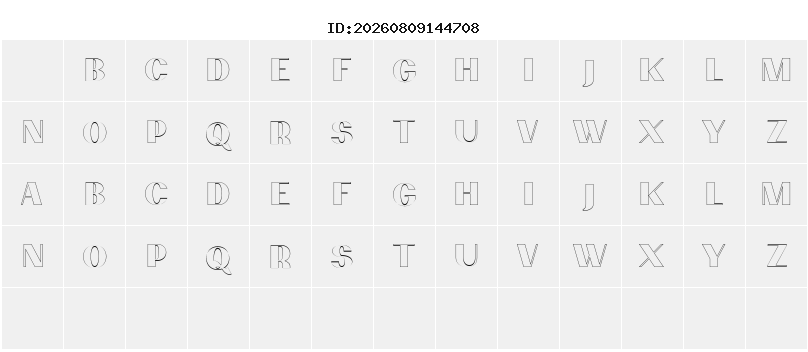
• Font Name: PassionSansPDca
• Font Style: OutlineLight
• Manufacturer: Prescott Design
PassionSansPDca.ttf is a modern, elegant sans-serif font designed for ultimate readability and visual harmony. Perfect for branding, headlines, web design, and print materials.